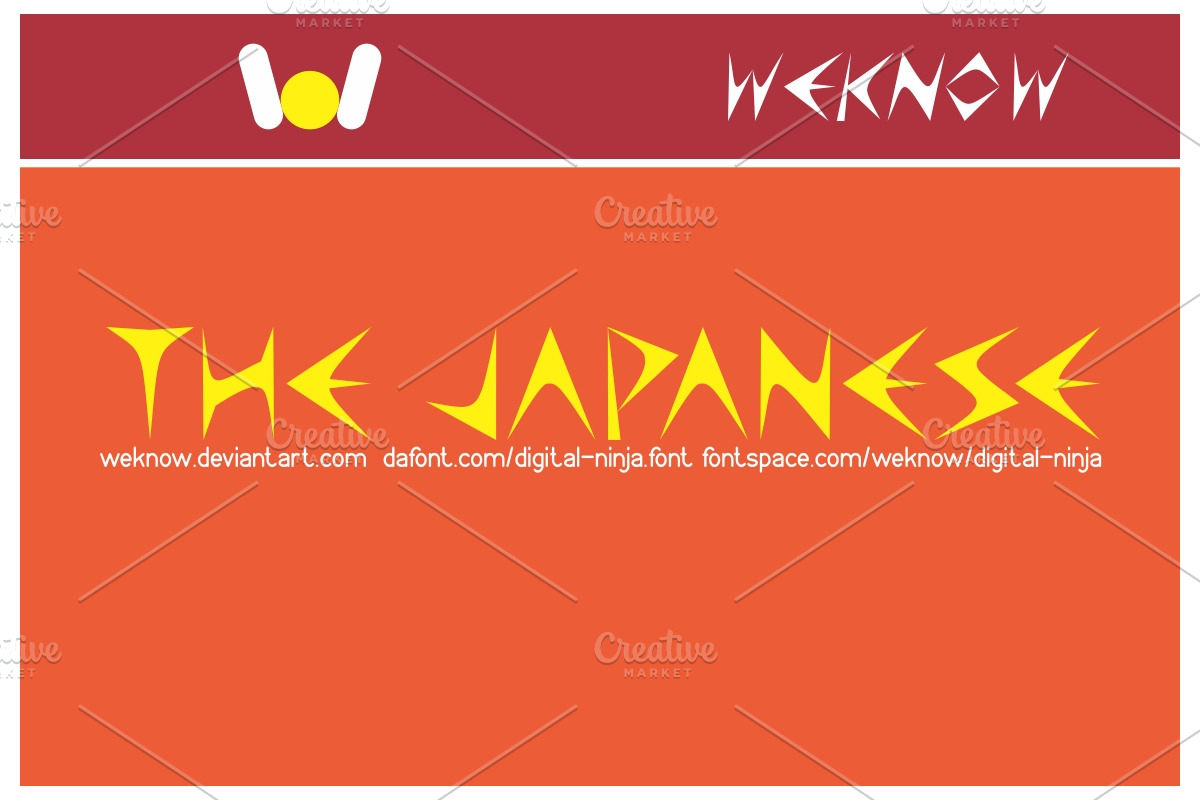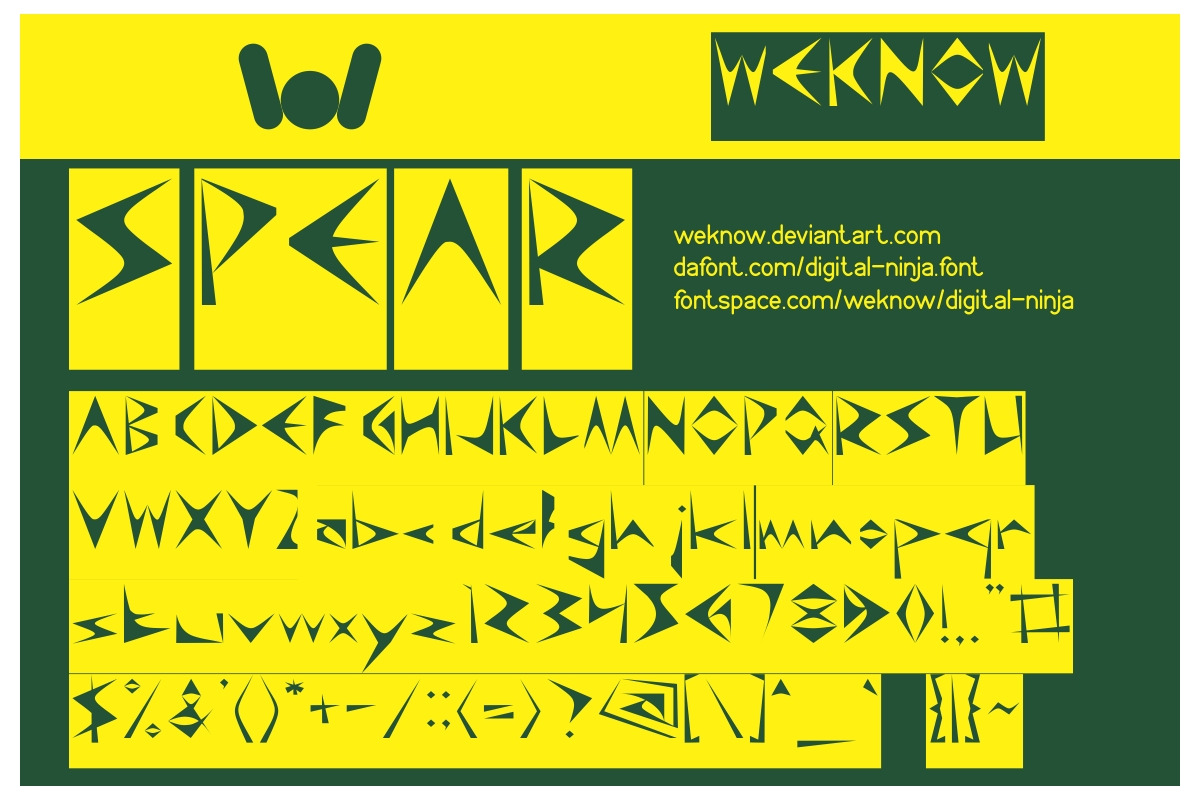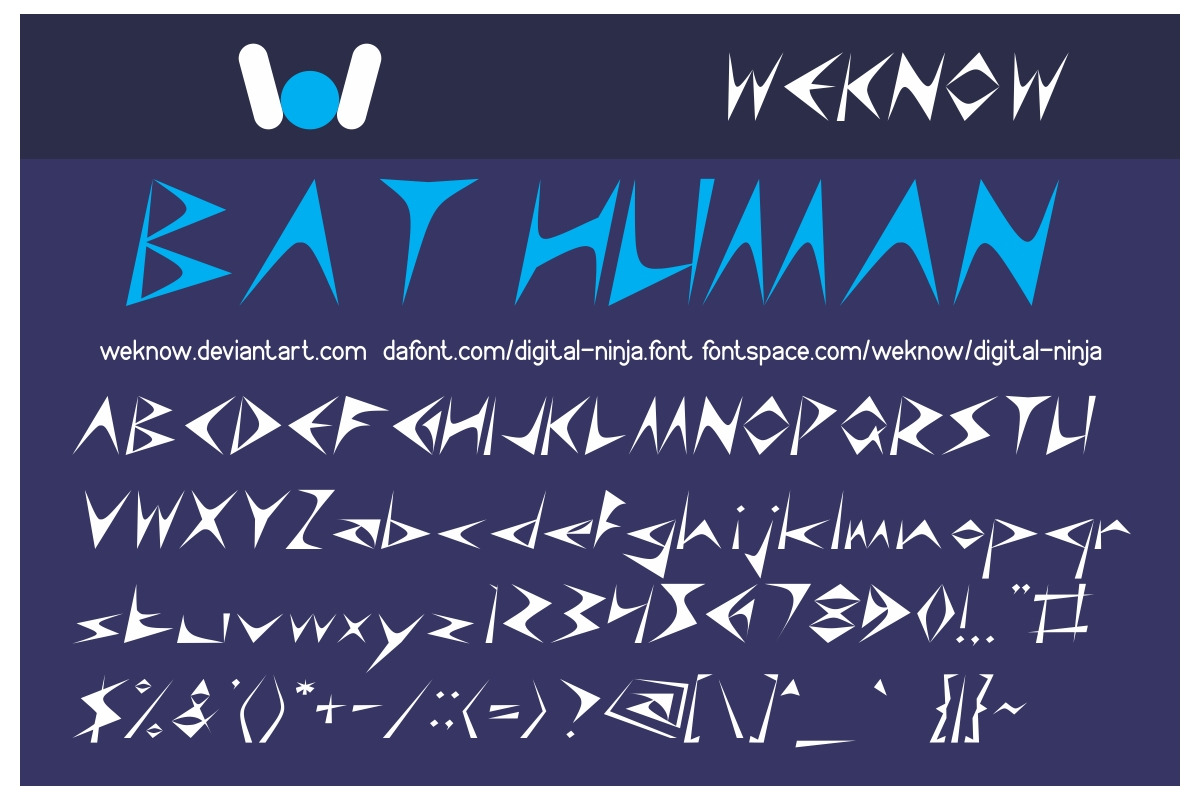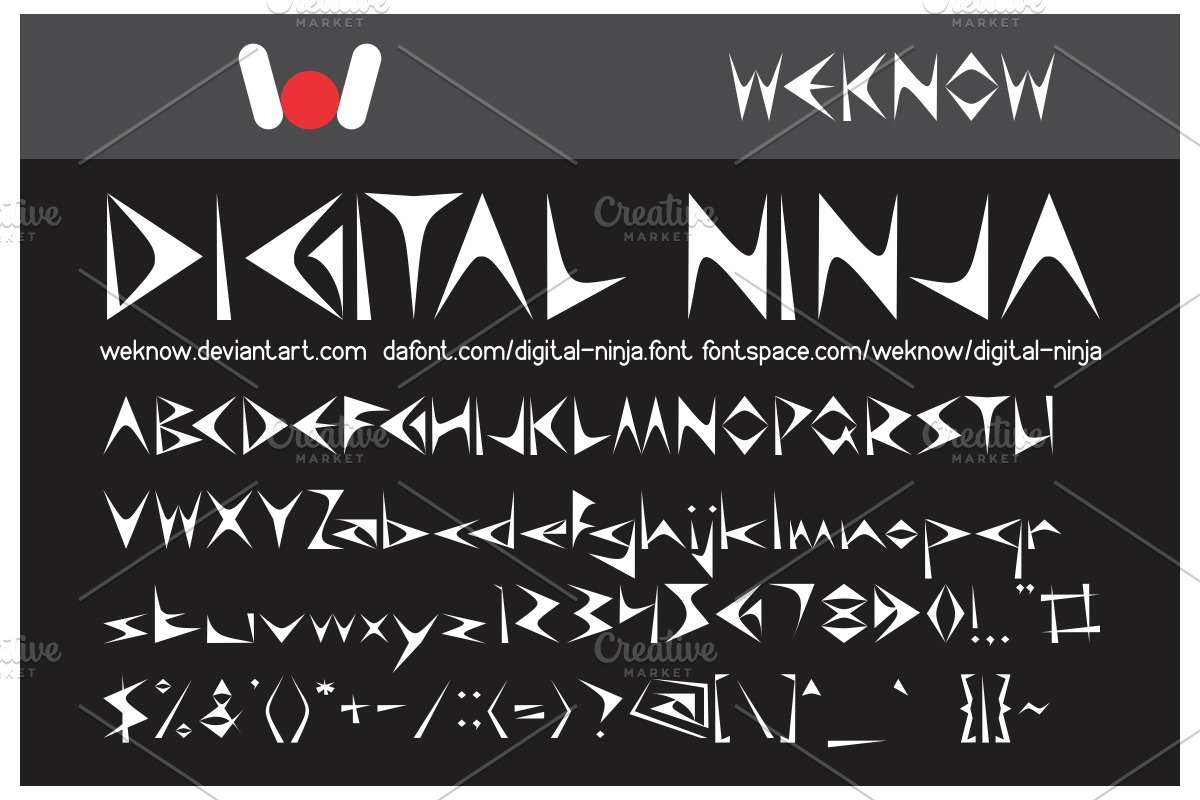
digital ninja font
available style: DIGITAL NINJA-Inverse, DIGITAL NINJA-Italic
Why digital ninja font is worth a look
digital ninja font by weknow fits naturally into Branding, posters, packaging, typography.